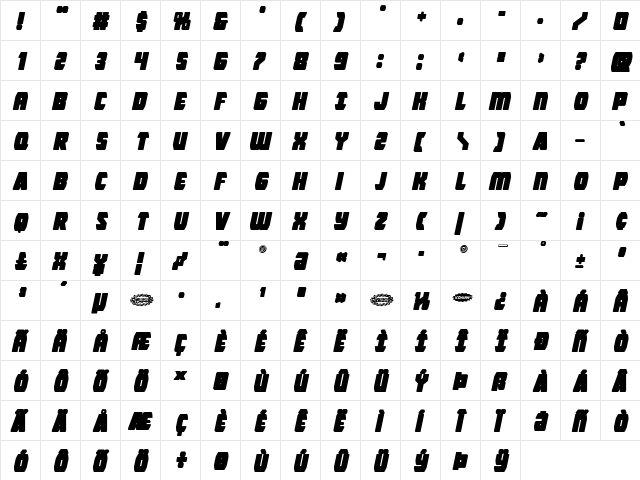
Intergalactic Block Italic Italic
Design Context for Intergalactic Block Italic Typeface
Intergalactic Block Italic is a composed and adaptable typeface that performs quietly and consistently across a wide range of design contexts. Its italic angle brings a sense of urgency and motion to the letterforms.
Pro Tip: Use Intergalactic Block Italic for emphasis, pull quotes, and subheadings where its slanted energy can add rhythm to the layout.